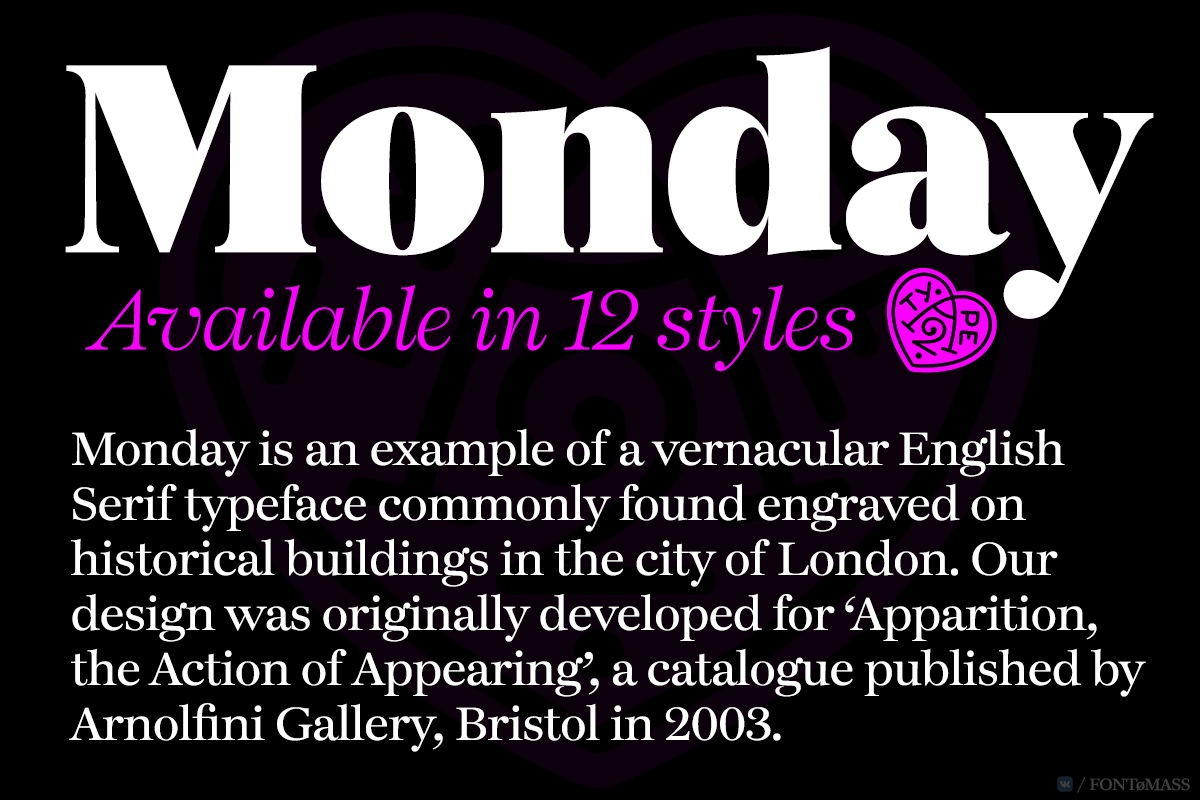
Monday Font
Monday Font is perfect for productivity-focused branding, office supply marketing, professional workflow systems, time management applications, business organization tools, corporate planning materials, efficient workspace design, and motivational work-life advertising. This energizing typeface works exceptionally well in both digital applications and print media where weekly momentum and professional energy are fundamental design requirements.
What makes Monday Font so exciting is its invigorating interpretation of fresh start energy and weekly momentum through crisp letterforms that seem charged with the same renewed determination and focused productivity that defines the beginning of each work week. The font features energized characters with professional proportions, productive curves, and efficiency-focused details that communicate readiness, organizational capability, and the positive mindset necessary for tackling new challenges and achieving weekly goals. Its motivational personality and workplace heritage make it ideal for productivity brands seeking to energize professional audiences while appealing to workers who embrace Monday as an opportunity for fresh starts and productive achievements.
The Monday Font family includes multiple weight variations with different energy levels, along with productivity-focused alternates and organizational ornamental elements. Each style maintains the typeface's energizing character while offering comprehensive character sets including efficient numerals, work-focused punctuation marks, and special symbols designed to enhance productivity communications and professional branding efforts across various workplace contexts.
This remarkable typeface represents the perfect fusion of weekly motivation and contemporary typography for business and productivity industries. Whether you're developing productivity app identities, creating workplace efficiency materials, or designing professional organization campaigns, Monday Font Free Download provides the energizing clarity and versatility needed to motivate success-driven professionals. The font's productive appeal makes it particularly effective for productivity software, office supply companies, professional development services, and businesses helping workers transform Monday from a dreaded day into an opportunity for fresh energy and weekly achievement.
The carefully crafted energizing details and optimized productive performance in Monday Font ensure both motivational authenticity and clear communication across all professional applications. Its invigorating presence makes it perfect for productivity branding, professional marketing materials, and workplace communications where its full Monday character can create lasting motivation and connections with audiences seeking to start each week with renewed energy, focused purpose, and the positive momentum necessary for professional success and personal achievement.